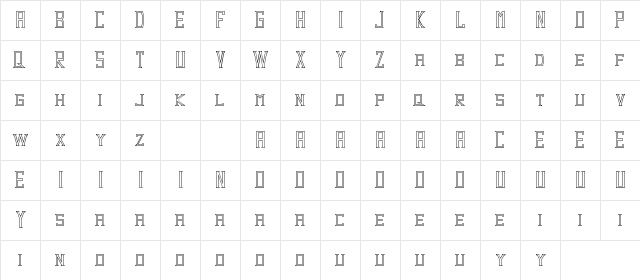
Dezert Demo Outline Regular
| Foundry | Edric Studio |
| Designer | Renata Insan C |
Design Context for Dezert Demo Outline Typeface
Dezert Demo Outline brings ornamental detail and strong personality to headlines and identities, where visual impact matters more than quiet functionality.